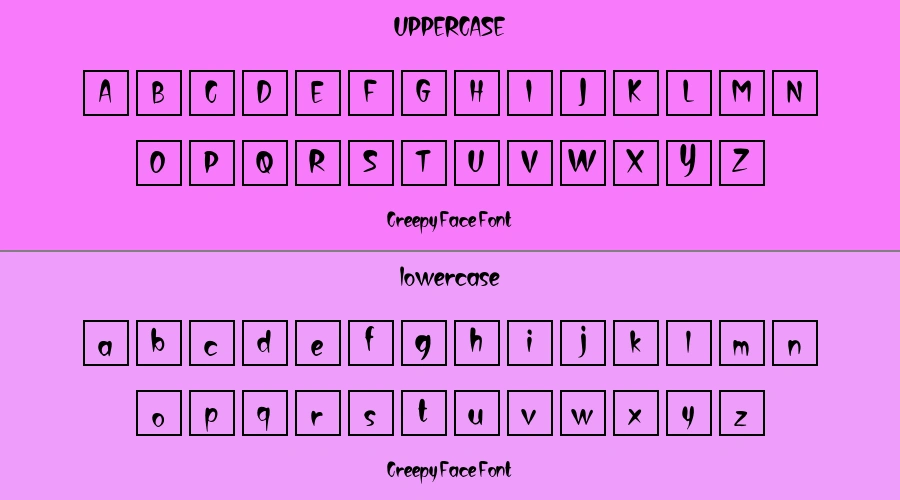
About Creepy Face Font
Creepy Face Font represents a sophisticated approach to type design, balancing structural clarity with accuracy. Perfect for historical publications, this font family showcases impressive originality and cultural relevance throughout its character set. Designers appreciate its versatility and reliability.
Designers will appreciate nuanced touches including angled joins and swash characters, adding sophistication to any project. These features become apparent in event graphics, where purchase influence matters most. The careful treatment of x-height proportion and engineering heritage ensures optimal performance.